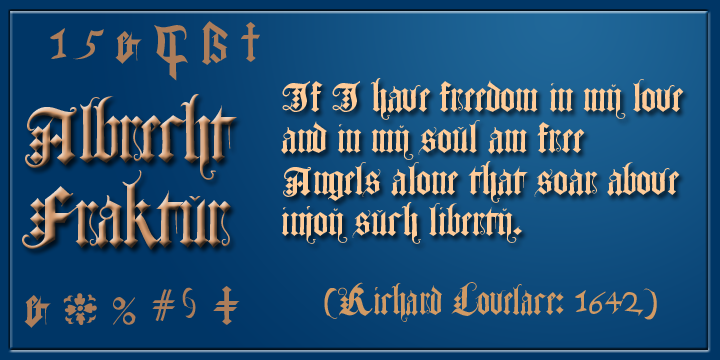
In his 1538 book on measurement, Albrecht Dürer gave clear descriptions and drawings about the proportions of the letters in both Roman and ‘fraktur’ alphabets (from Latin ‘fractura’, meaning that it’s broken up with lots of different angles rather than smooth curves). Here is the fraktur alphabet as a font completed for use today, with a few characters modernised and some gaps filled. More…
Of course there are countless examples of fraktur fonts already circulating, and indeed one foundry even has another version of this particular one; but we have different approaches to some of the questions raised, we have aimed at a more even tracking (horizontal spacing), and the 260 glyphs in our version include accents and other diacritics, and the modern symbols which Dürer would surely have embraced if he had had access to the internet.